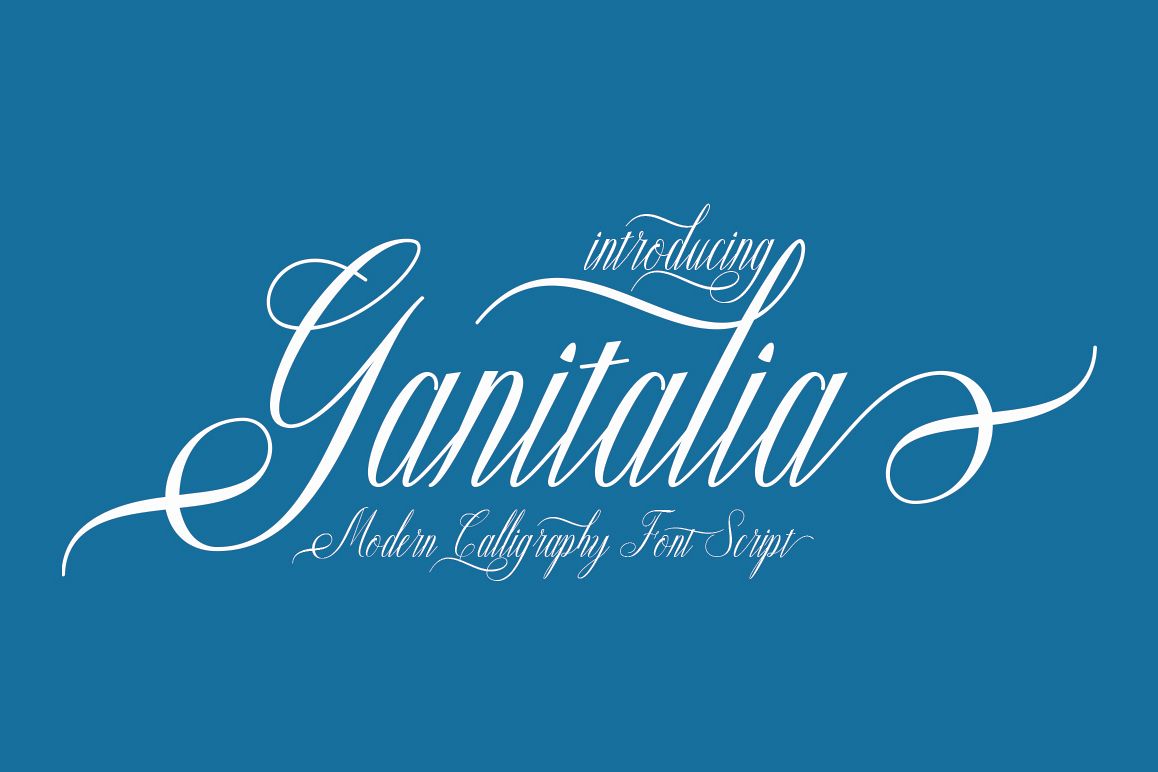
Ganitalia
Ganitalia Modern Calligraphy. This font was designed by handwriting, and it has a modern and unique forms of calligraphy, the writing style is very natural.
The Features of this fonts is;
*Standart ligatures
*Stylistic Alternates
*Contextual Alternates
*Stylistic sets
*swash